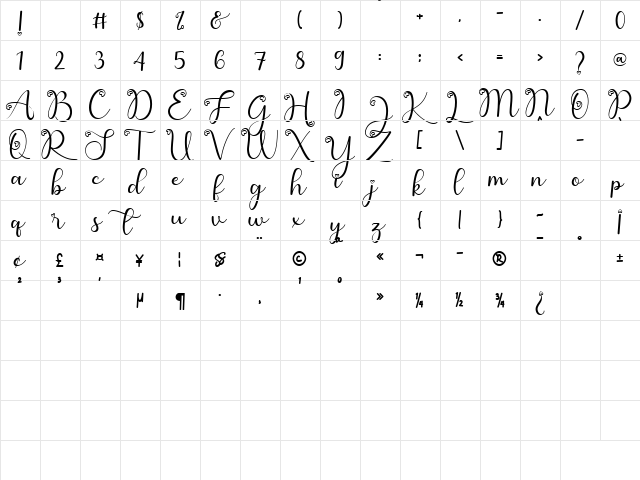
Cute Butterfly Regular
| Designer | AEN Creative Studio 2020 |
Design Context for Cute Butterfly Typeface
Cute Butterfly is a composed and adaptable typeface that performs quietly and consistently across a wide range of design contexts.